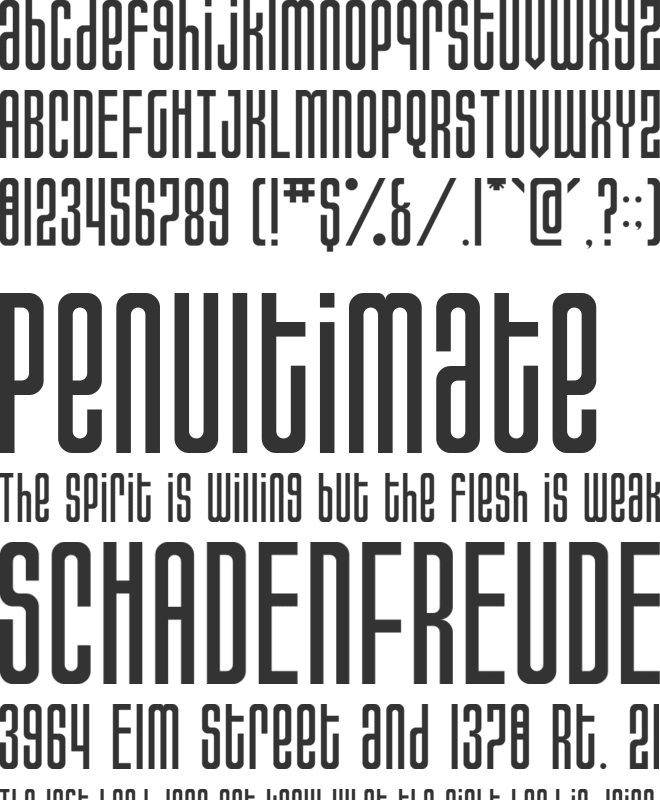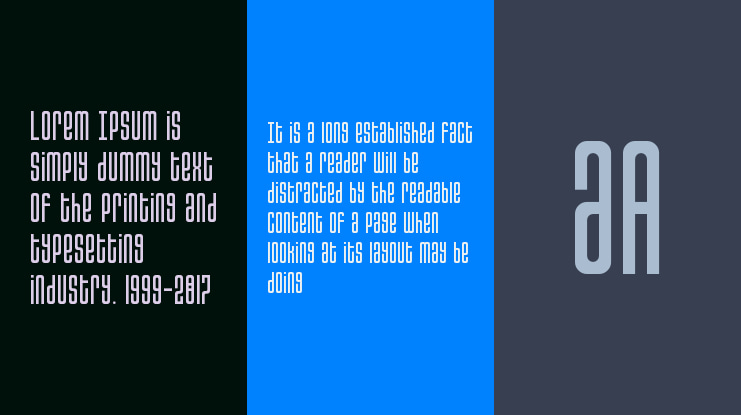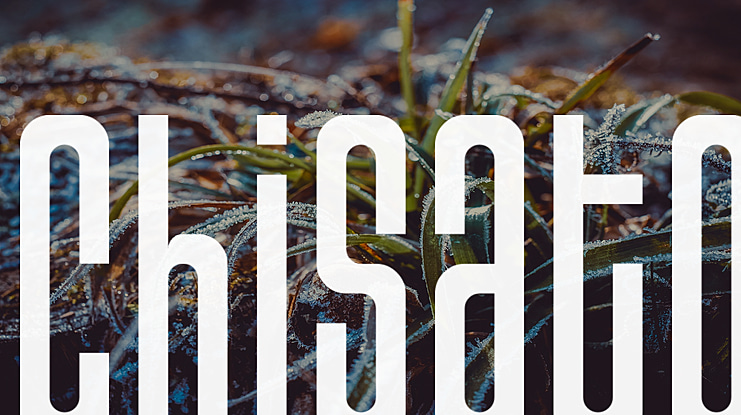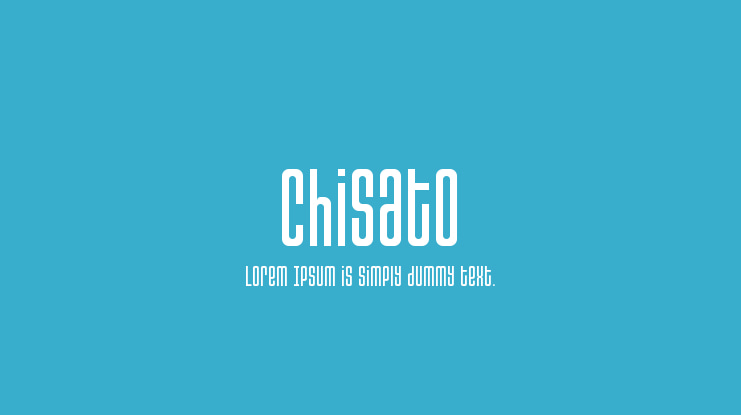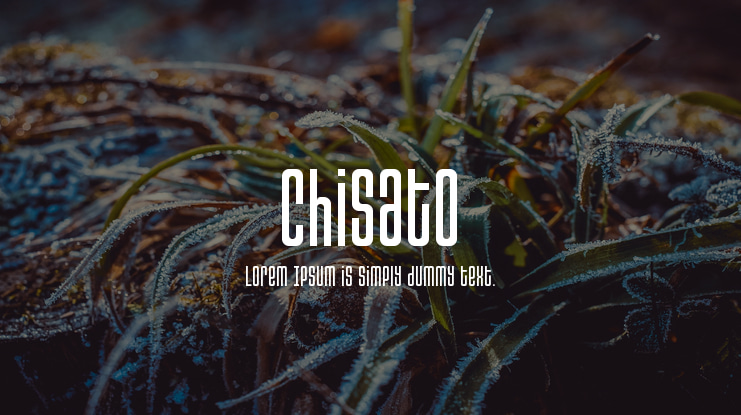
Chisato Font
An asymmetrical sans-serif I designed for use in RPG rulebooks. Supports Coptic, Danish, Dutch, English, Finnish, French, German, Greek, Hungarian, Icelandic, Italian, Norwegian, Portuguese, Spanish, and Swedish.